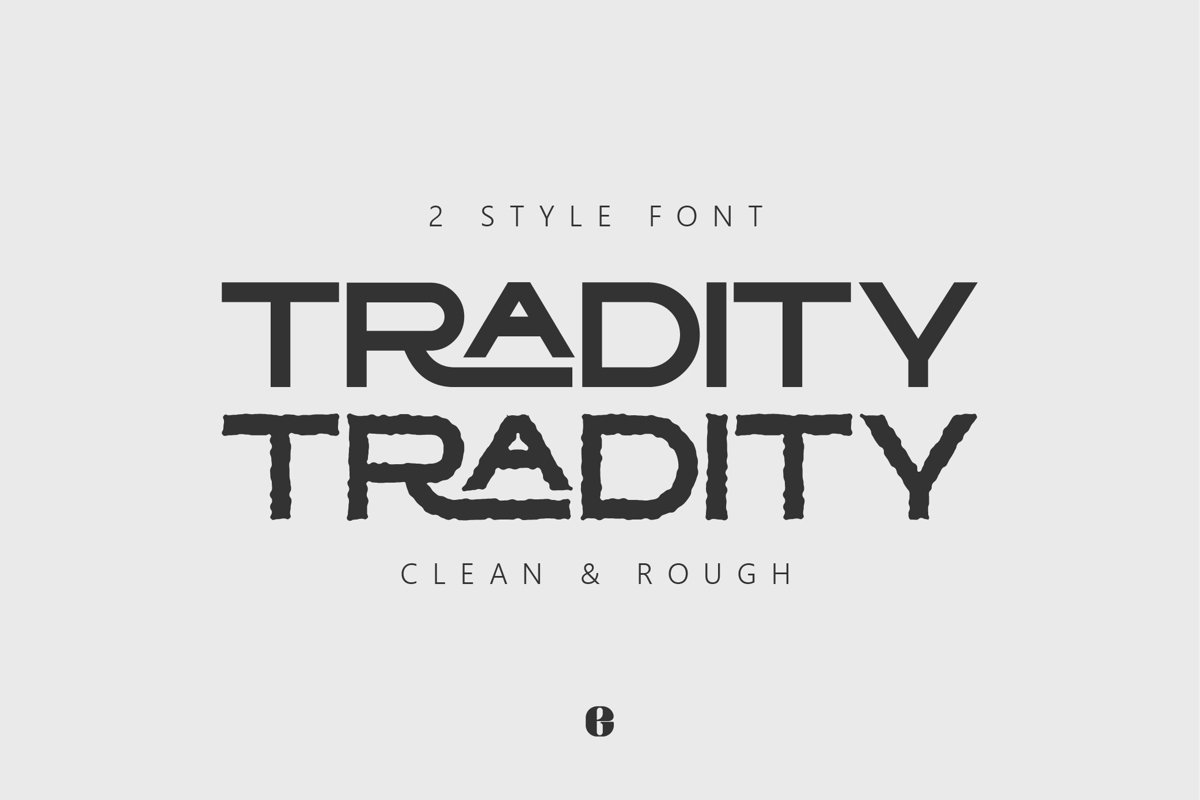
TRADITY | Dual Style Capital Font
Tradity
Traditi Rough
Tradity is a capital serif font with various ligatures suitable, Aviable 2 texture Clean and Rough.
Tradity great for Poster, Social Media Deaign, Logo, T- Shirt Clothing, etc.